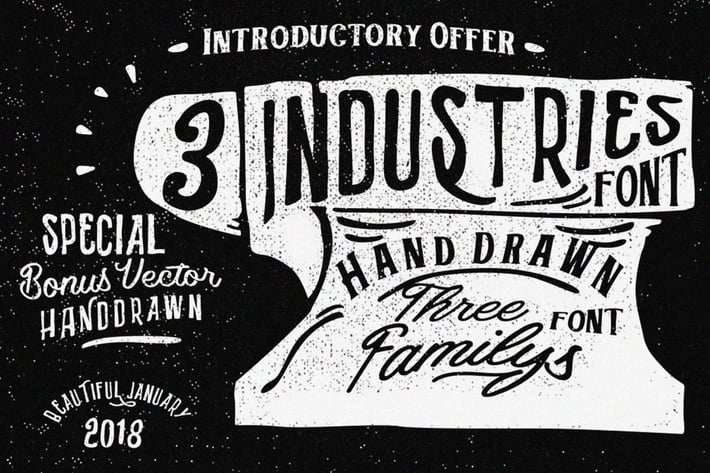
Three font industries
Senzana
Archer is a font made with hand drawn style, plus stylishtic and some ligature on the glyph. This font is suitable for use in posters, bikers and other creative fields.